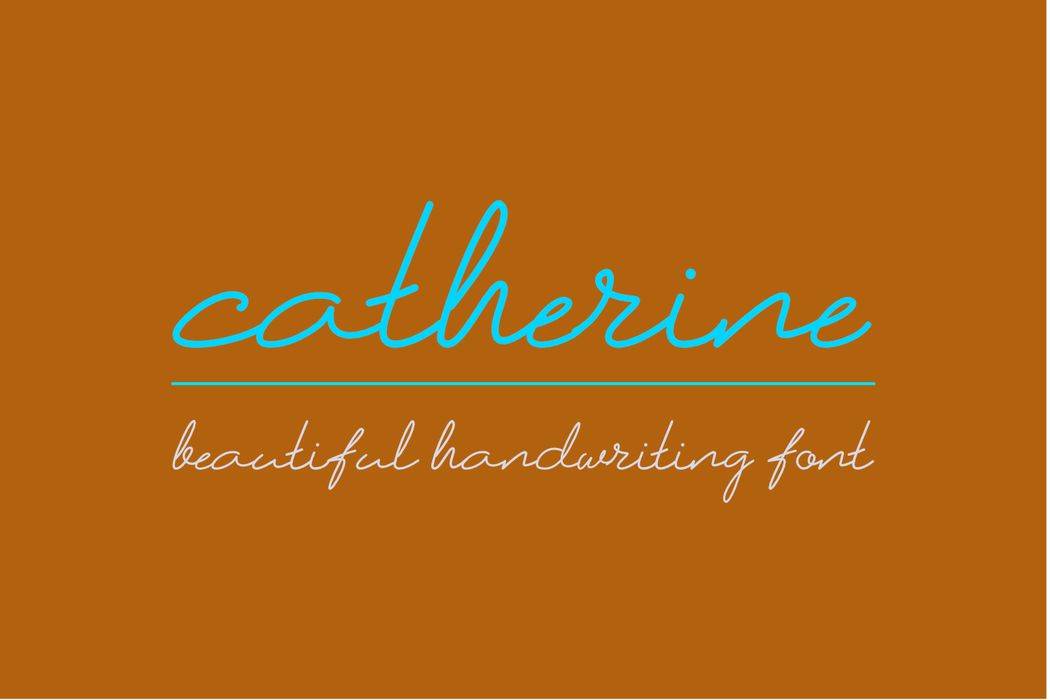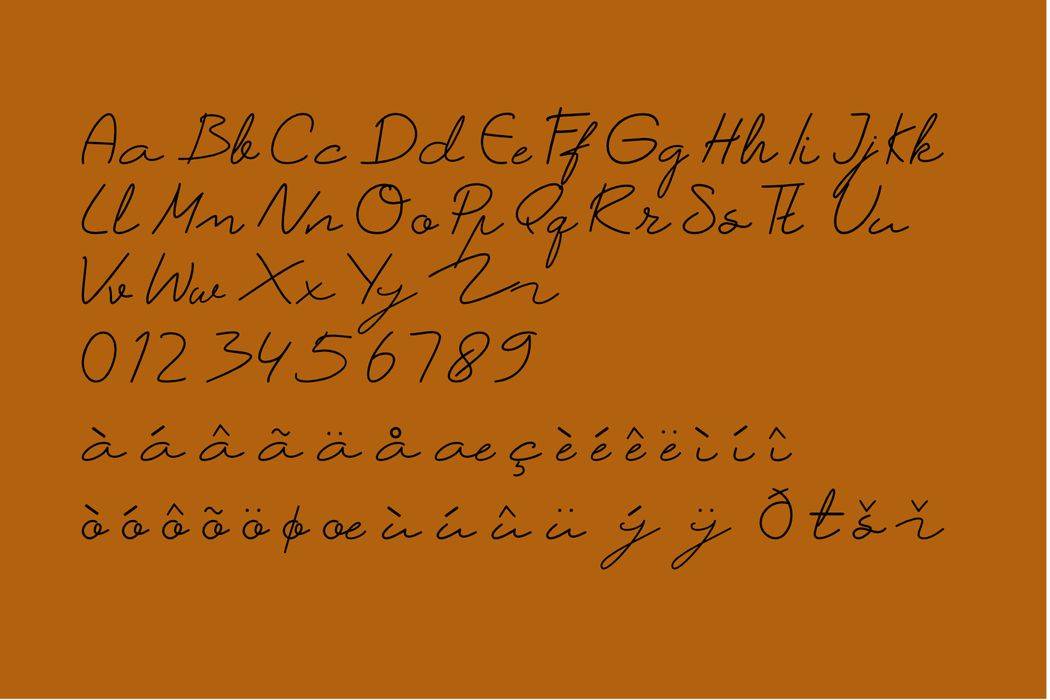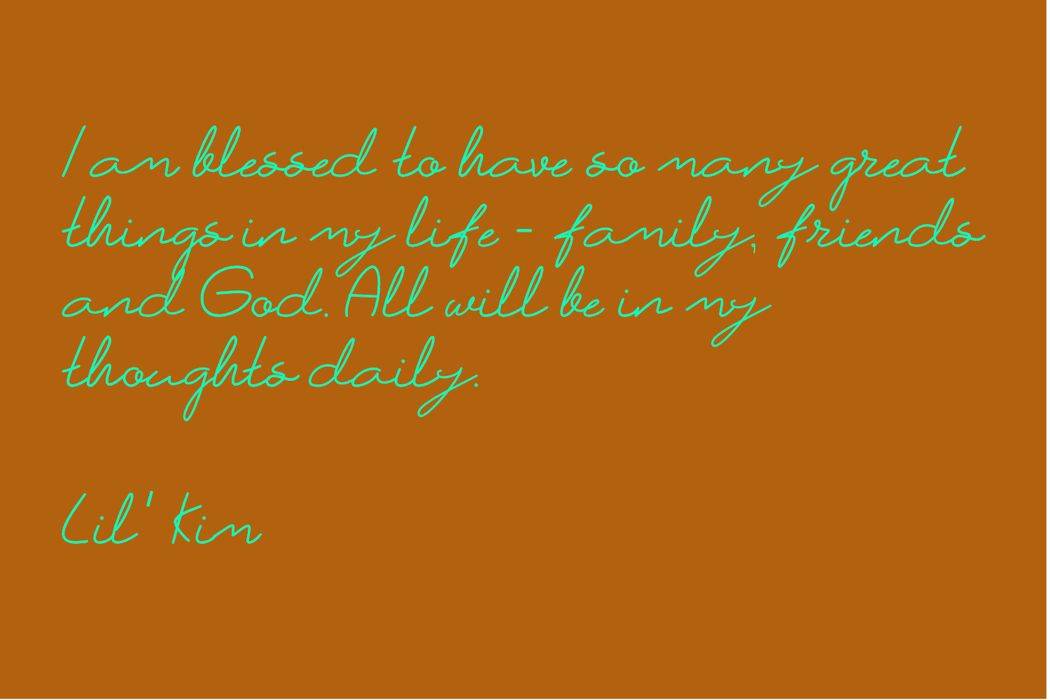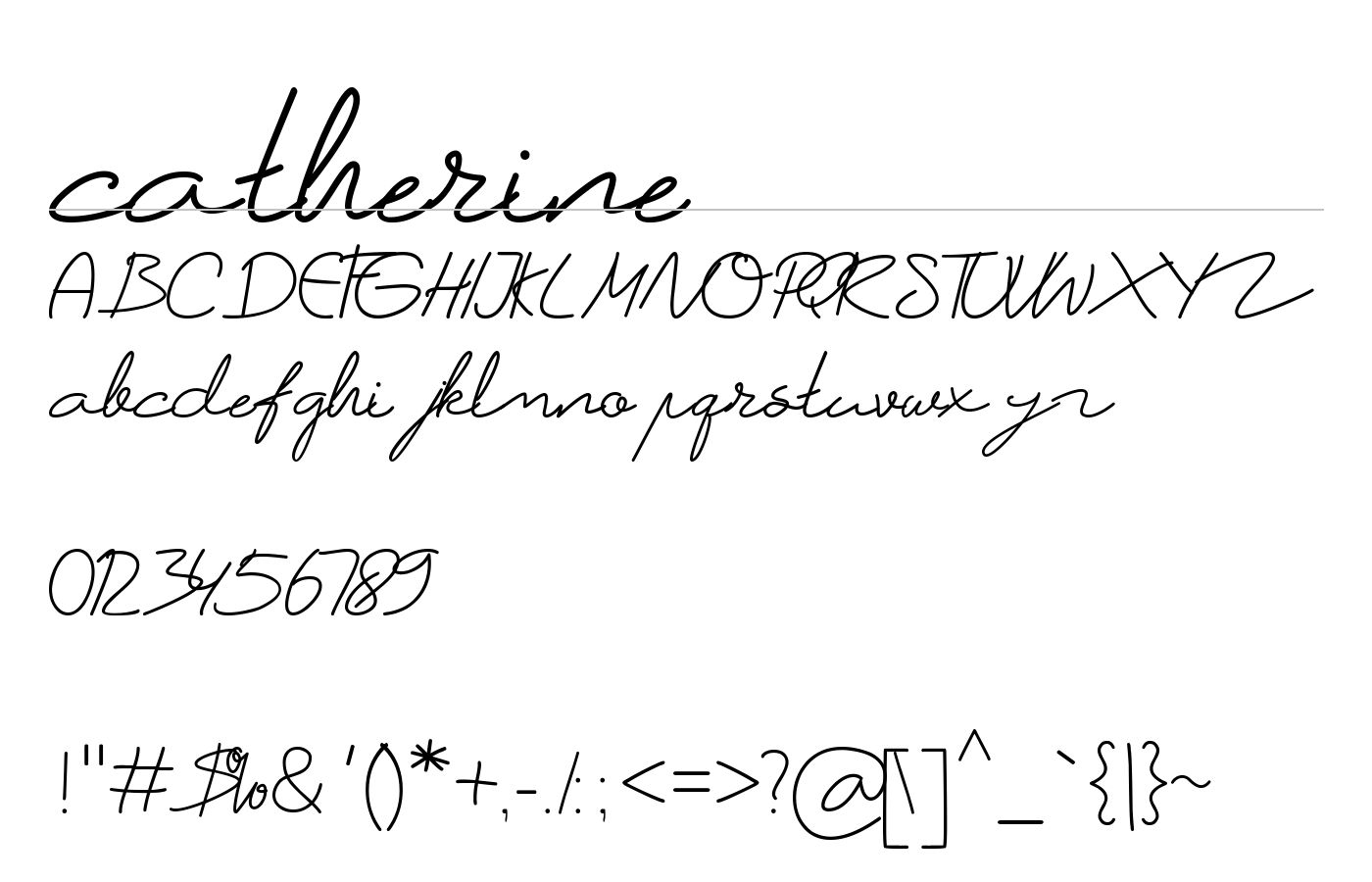
Catherine Font is a delicate, handwritten script that feels personal and elegant with its thin, flowing lines and casual style. Its slender letterforms and lively strokes make it perfect for adding a warm, approachable touch to invitations, branding, and creative projects where a friendly yet refined look is desired.
Catherine Font
About Catherine Font
| Font family | Catherine Font |
| Designer | Lili Sadili |